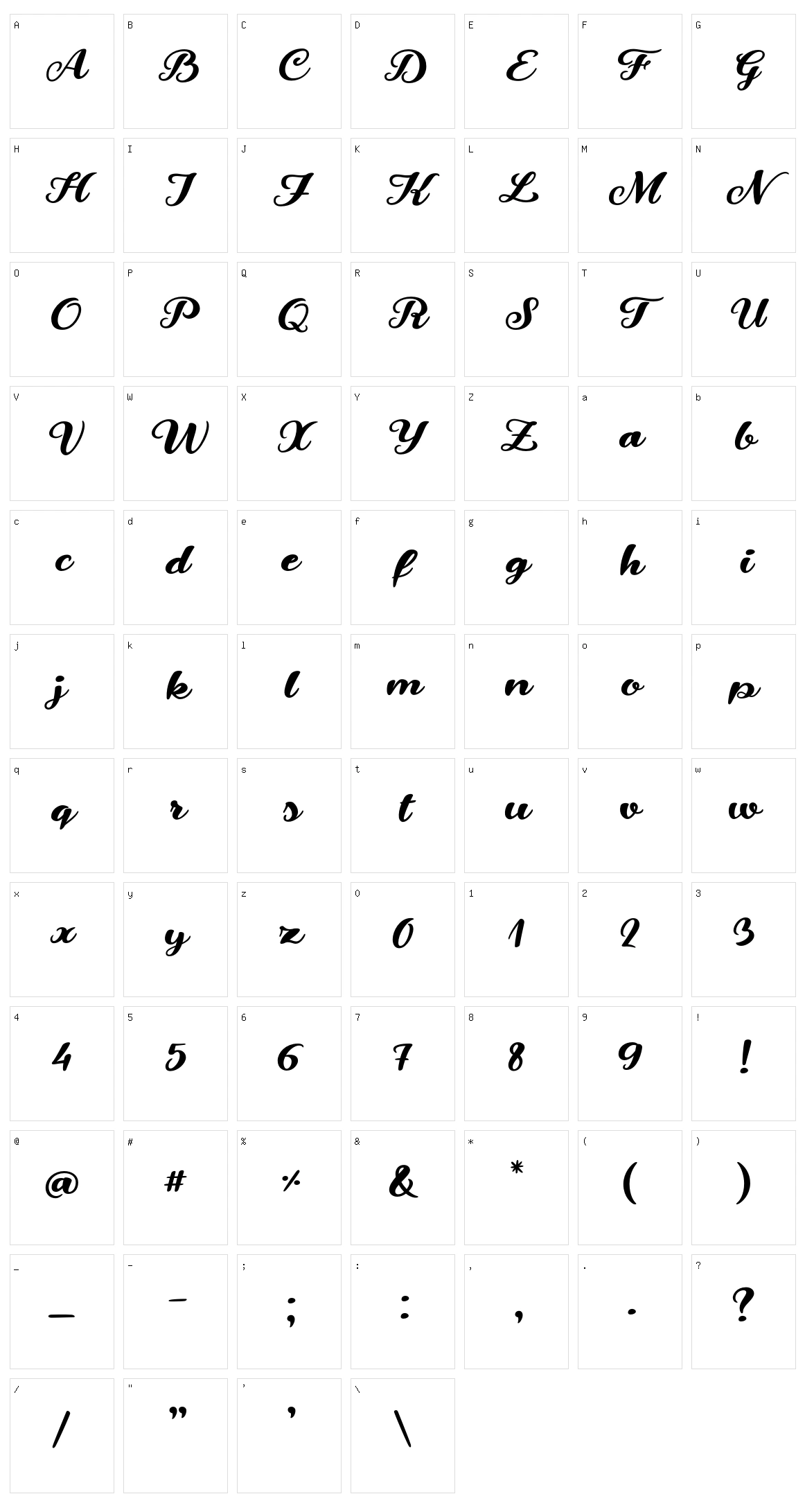
Snowman Dudes
Designed by: RB Fonts
ÿþSnowman Dudes is a handmade, happy and bold calligraphy font that you can use for all your creative projects wether it be
* logos,
* printed quotes,
* invitations,
* cards,
* Instagram posts.